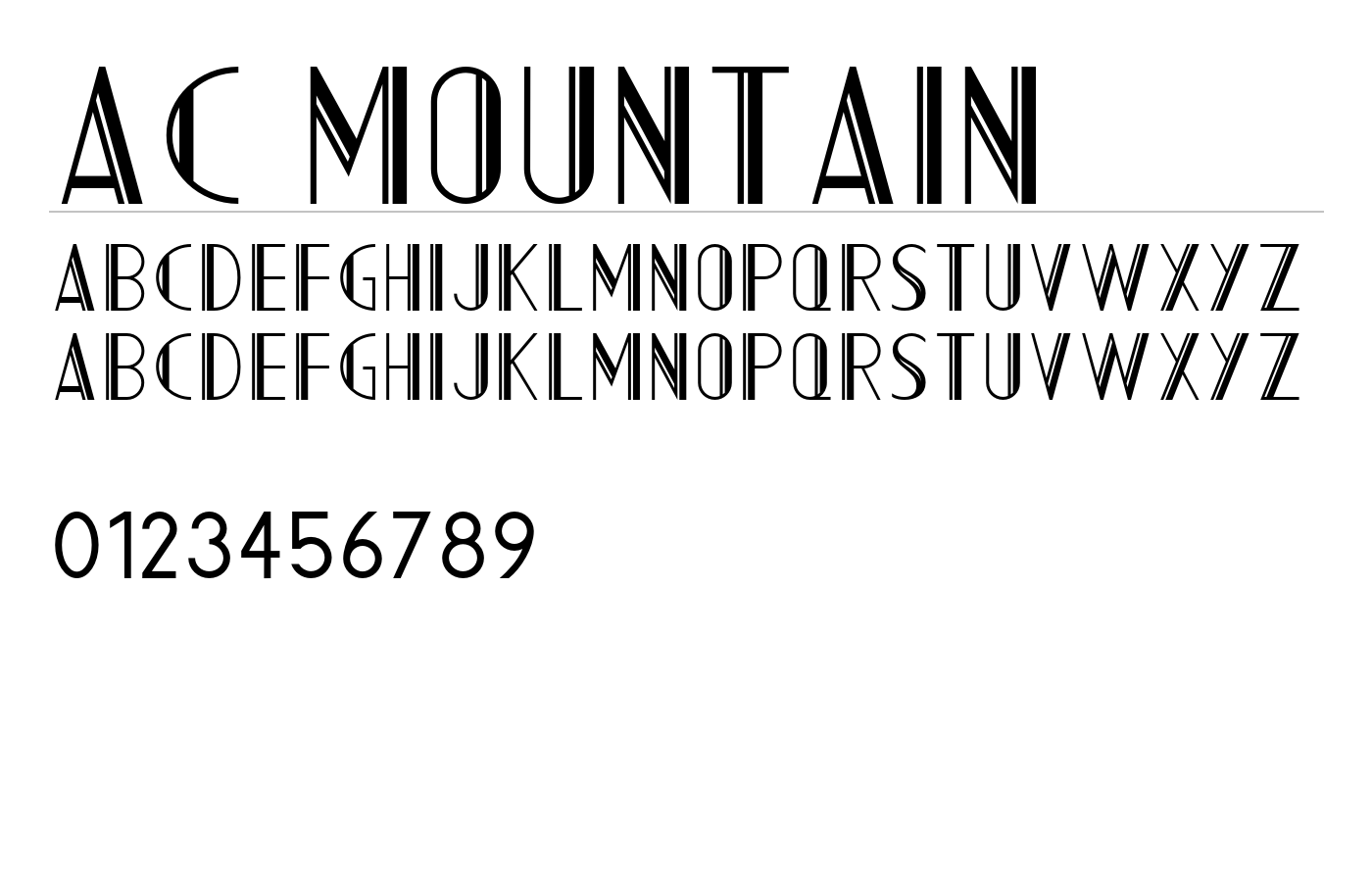
AC Mountain is a striking sans serif display font with a tall, condensed structure and sharp geometric forms. Its high contrast and angular lines give it a modern, Art Deco-inspired elegance, making it ideal for eye-catching headlines, luxury branding, and stylish posters. This font works best when used at large sizes to emphasize its unique character and sophisticated personality.
AC Mountain Font
About AC Mountain Font
| Font family | AC Mountain Font |
| Designer | Adrian Candela |